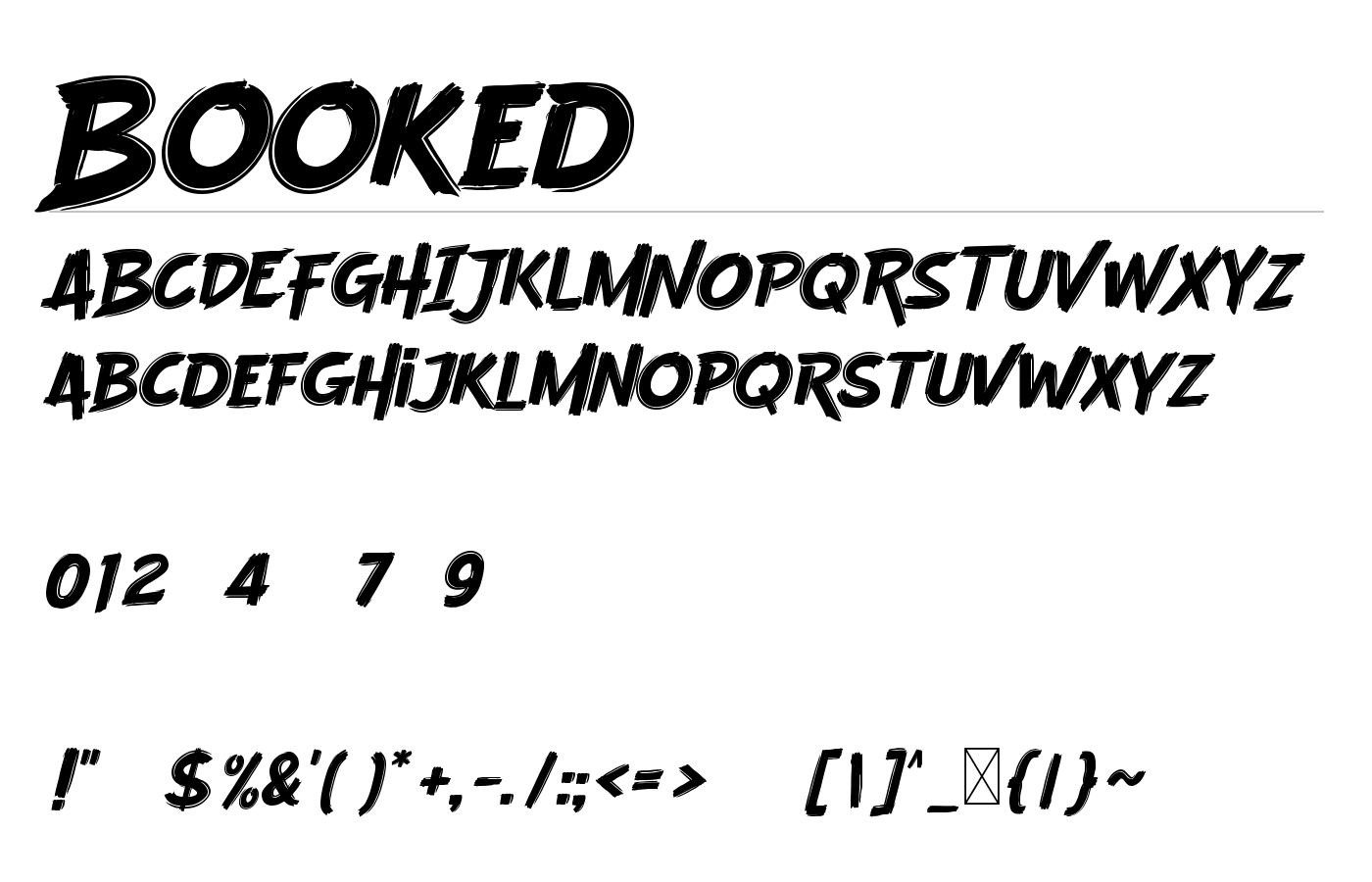
Booked is a bold, playful brush-style sans serif font with rough, textured strokes that give it an energetic and hand-crafted feel. Its irregular, dynamic letterforms and slightly condensed shape make it perfect for casual, expressive designs such as posters, logos, and headlines where a lively, informal tone is desired. This font works well in creative projects that want to convey personality and movement, standing out with its raw and artistic charm.
Booked Font
About Booked Font
| Designer | Anang F & Malik Wsn | Gassstype© Studio 2023 |